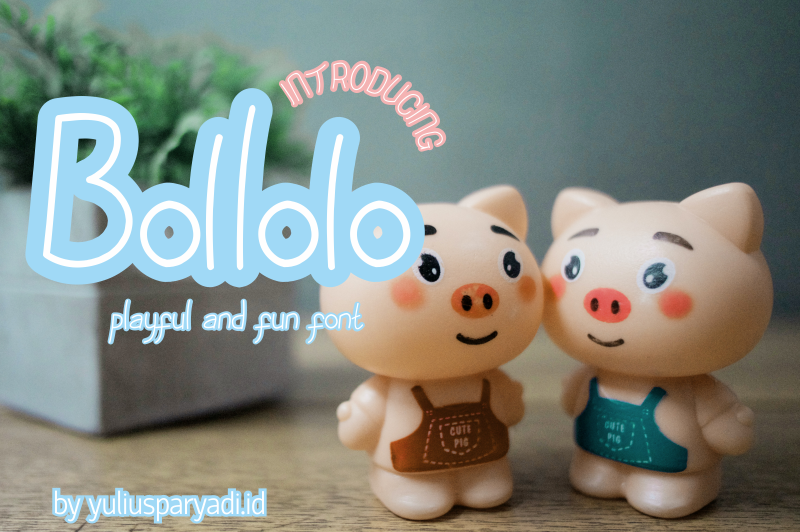
Bollolo (Handwritten) is a fun and playful font. Bollolo name is made from bolo-bolo which is mean lets be friend. This font is readable, catchy, and easy to use. This font is suitable for quotes, logo designs, kids toys, story book, and many other design projects. Bollolo is includes: - full set uppercase and lowercase letter; - numerals; (Full Version) - multilingual support; (Full Version) - large number of punctuations; - ligatures. File Types includes: - OTF, TTF Please add this font as your favorit, hit like button, or follow me. I'll very happy for that and aprreciated it. |